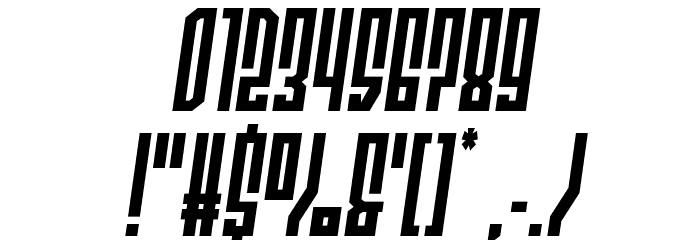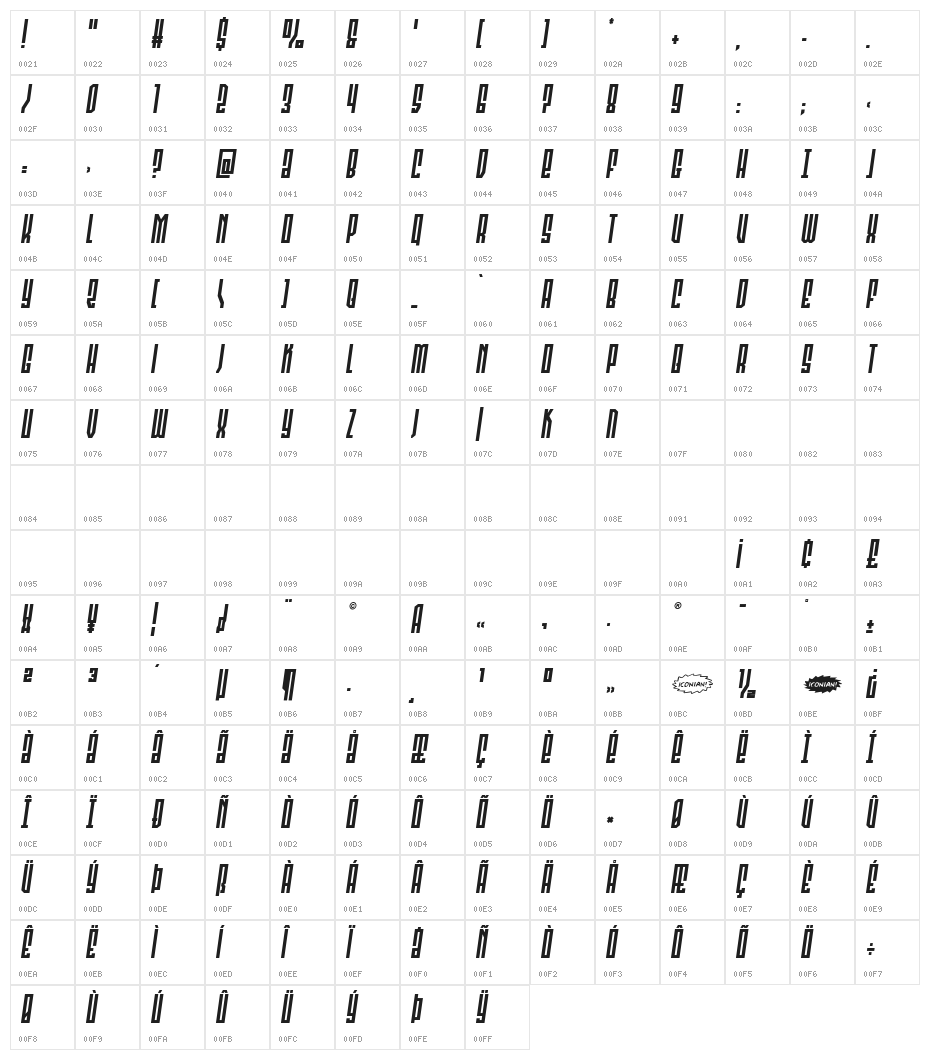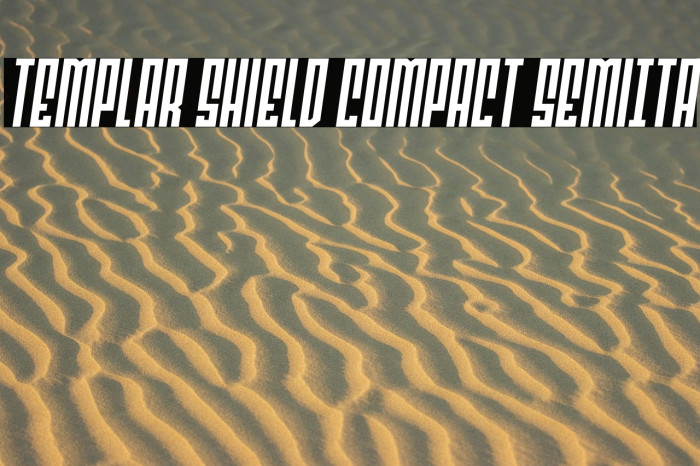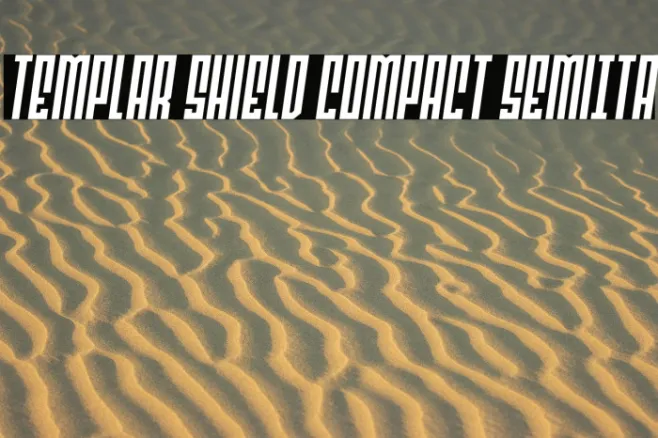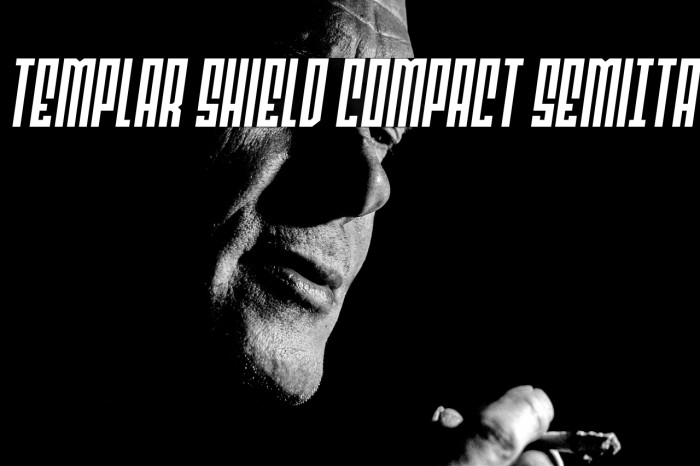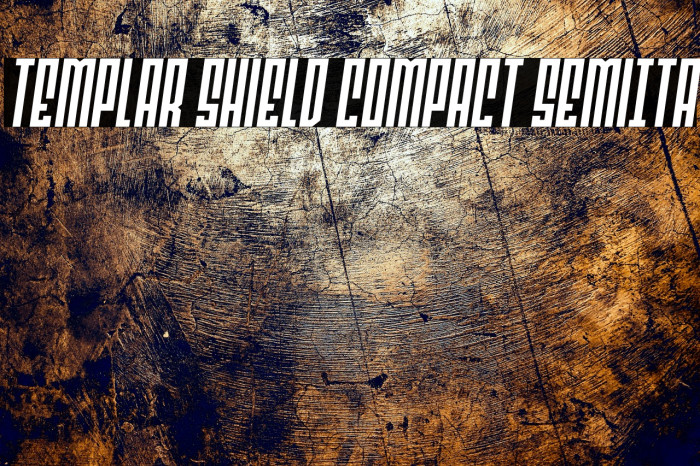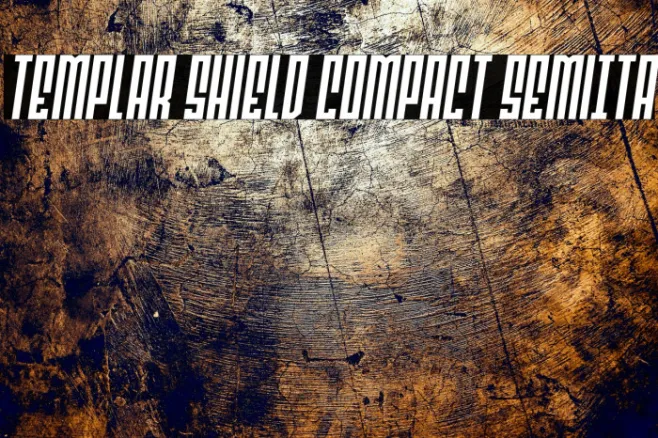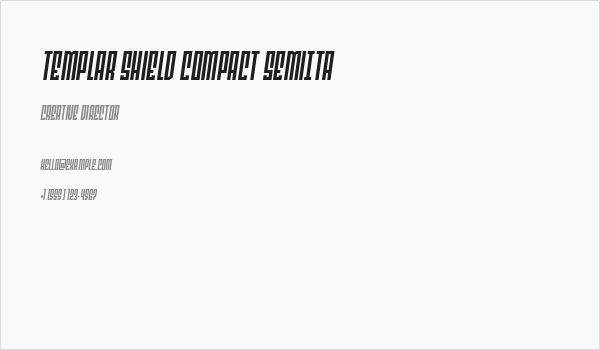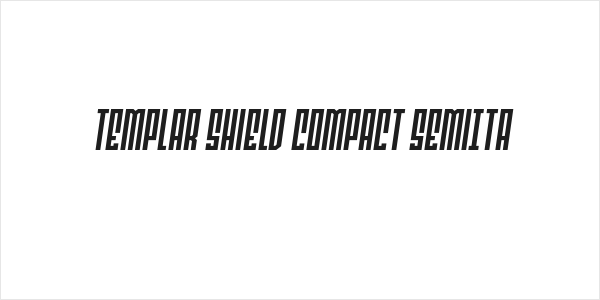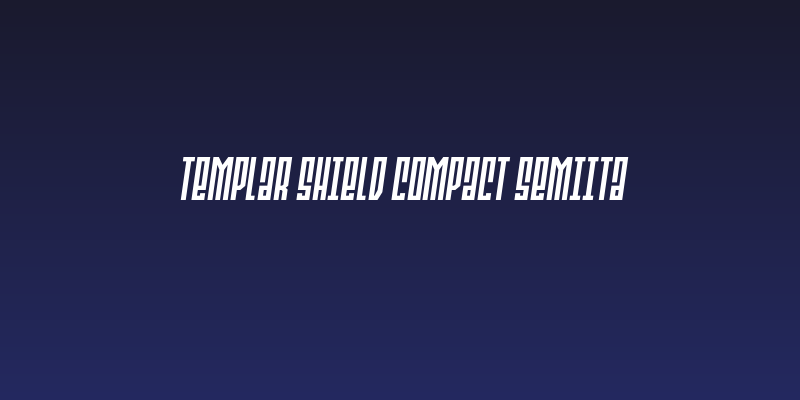
Templar Shield Compact SemiIta Font
Templar Shield Compact SemiIta Description
This font features a bold and angular design with a strong geometric influence. The characters are tightly spaced and exhibit a condensed width, giving it a compact appearance. The strokes are consistent in thickness, providing a medium contrast that enhances readability while maintaining a distinctive style. The uppercase and lowercase letters share a similar height, contributing to a uniform look. The font's slanted orientation adds a dynamic and modern touch, making it suitable for attention-grabbing headlines or titles. The numerals and special characters are designed to match the overall aesthetic, ensuring a cohesive visual experience.
| Proposed Projects | Ideal for sports branding, dynamic posters, modern logos, and edgy editorial design. |